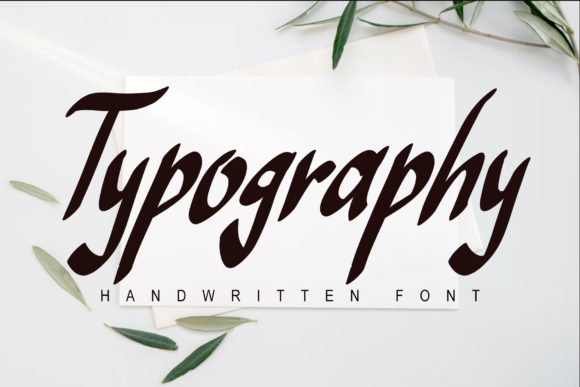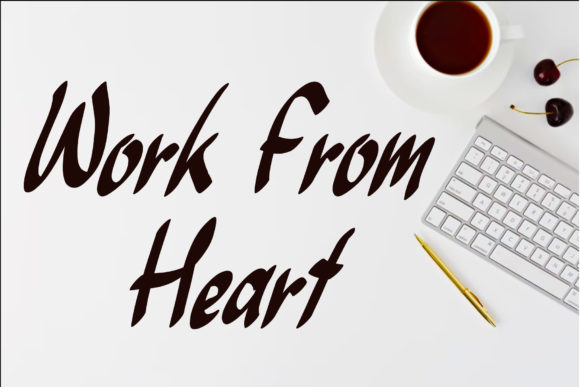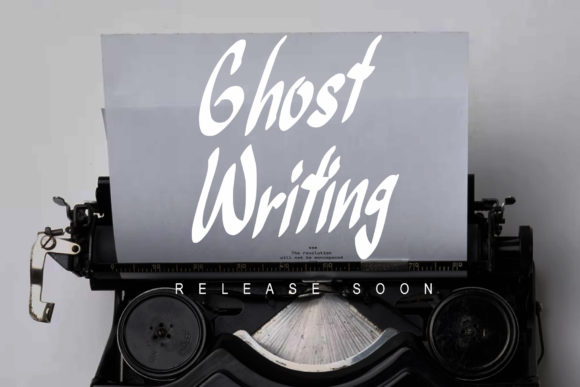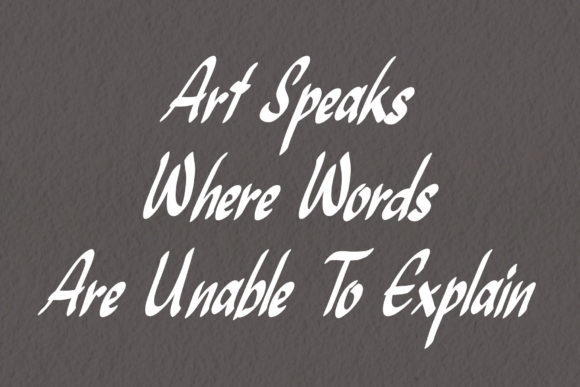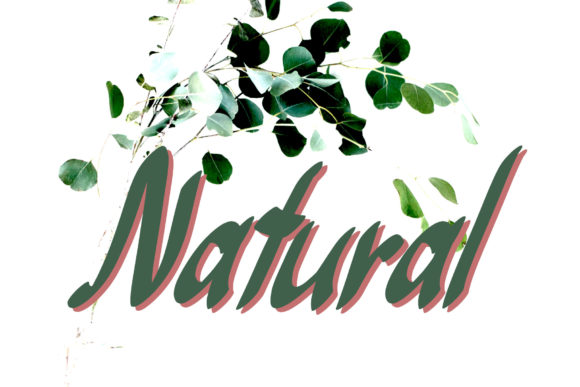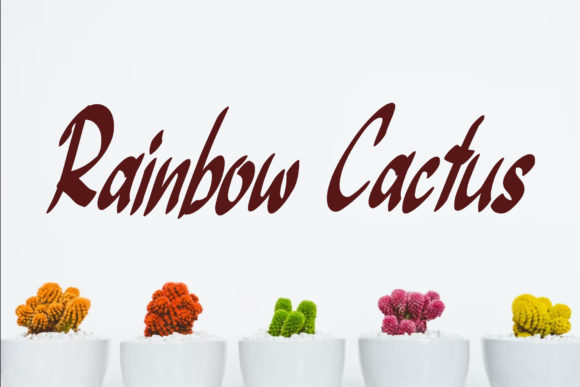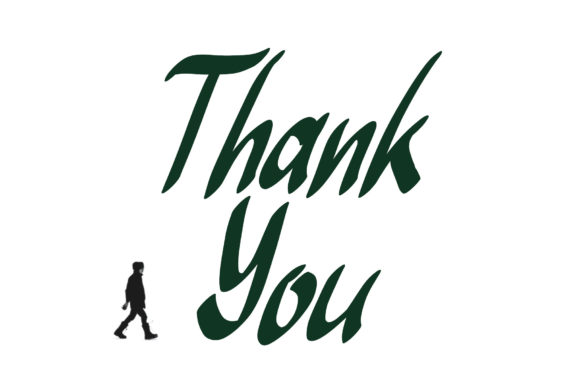
Typography Font
Typography is a lovely and delicate script font that exudes elegance and class. This font was particularly crafted for those who need a beautiful and refreshing look to their designs.